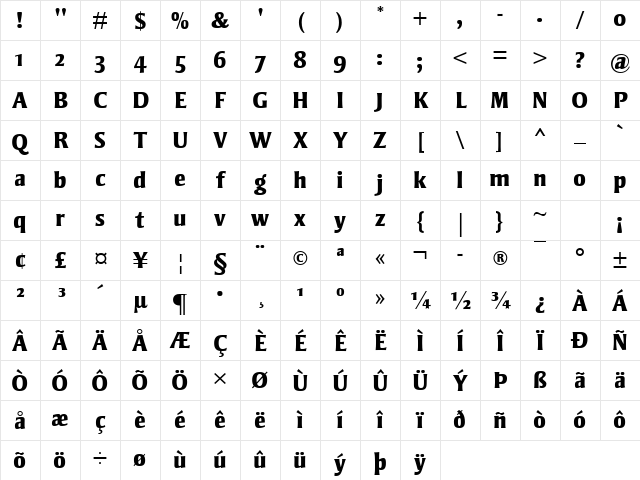
Complete Strayhorn MT OsF Extra Bold Regular glyph index. Displaying only characters natively supported by Strayhorn MT OsF Extra Bold Regular font.
Strayhorn MT OsF Extra Bold is a composed and adaptable typeface that performs quietly and consistently across a wide range of design contexts. Its bold stroke weight gives it real presence on the page.